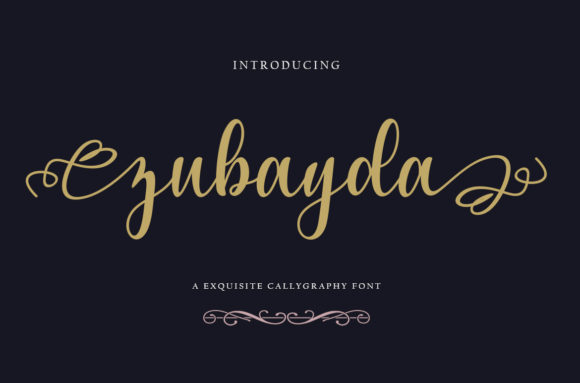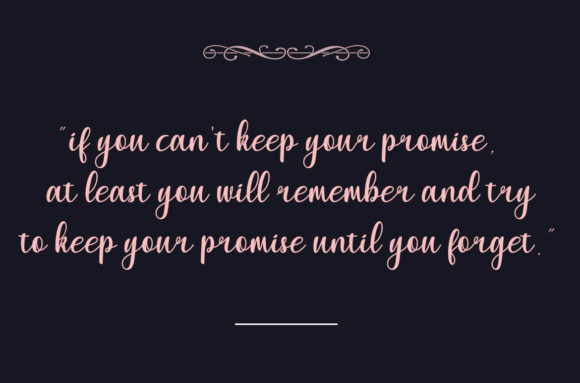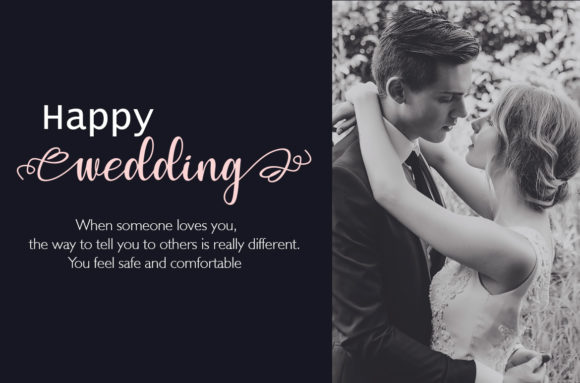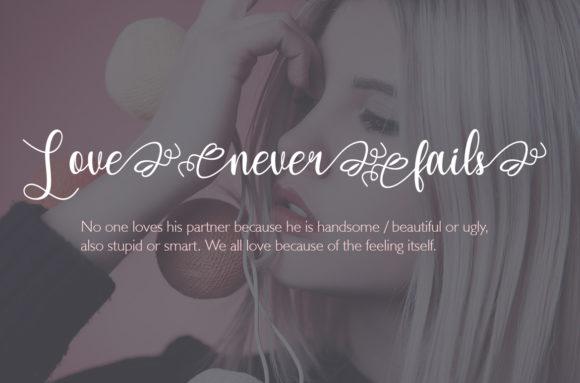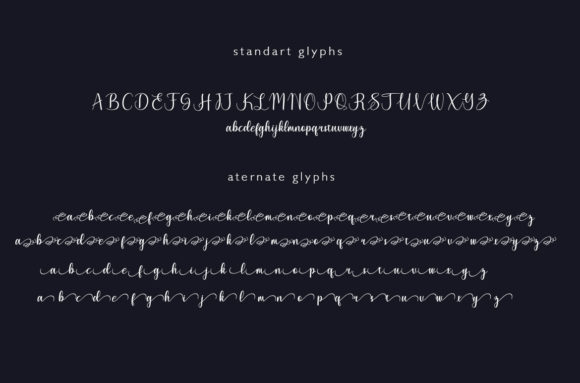
Zubayda Font
About Zubayda Font
Zubayda is an adorable and cute handwritten font with a personal charm. It will inspire any new design projects with its authentic feel!